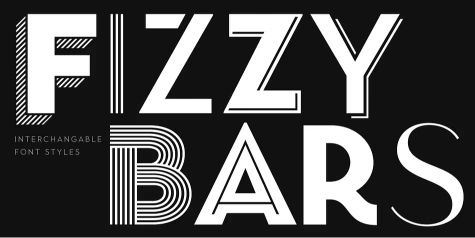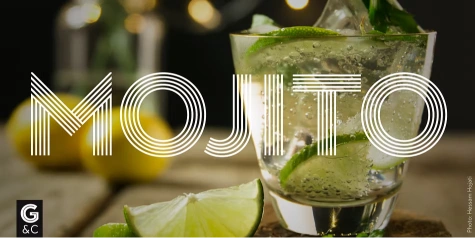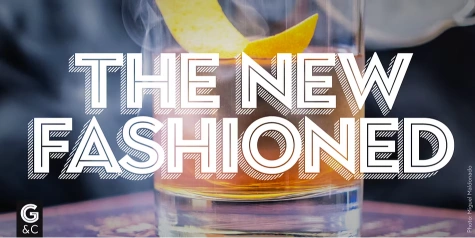
Town Font
About Town Font
I am a typographer and graphic designer who often searches for fonts that bring life to branding projects. Recently, I came across the Town Font, and it instantly caught my attention. Its art deco styling paired with modern detailing felt different from other typefaces I had been using.
I tested it in a restaurant branding project where both elegance and bold presence were needed. The results were stunning. Headlines stood out, and the styling made the layouts feel refined. Writing this review is my way of sharing why this font impressed me and why it might work for your projects too.
Town Font and Its Designer
The Town Font is a display font designed with inspiration from modern art deco and lettering traditions. It was created by Jason Vandenberg, a designer known for fonts that combine contemporary proportions with classic styling. His approach makes Town both decorative and practical, offering a typeface that adapts across brand identities and layouts.
Town comes as a collection rather than a single font. It includes eight base fonts that provide the essential weights for regular use. Alongside these, nine special decorative styles bring flair to headlines and projects that demand unique character. The inline versions, accent sets, and italics add more variation, giving designers multiple ways to experiment without leaving the collection.
The details within this typeface make it stand out. Each letter feels carefully constructed, balancing contemporary styling and subtle deco references. Unlike fonts that lean heavily on nostalgia, Town achieves a timeless appearance by blending the art deco foundation with clean, modern design rules. That balance is why it works so well for corporate branding, decorative labels, or even magazine layouts. Its appearance is elegant yet strong, offering both individuality and versatility in one package.
Features of Town Font
Town isn’t just a decorative font, it’s a full collection with enough range to cover multiple uses. The base fonts provide solid type weights suitable for regular text or headlines. Decorative sets introduce styles that create impact, such as inline variations for brighter titles or accent fonts for subtle shadows. These can be mixed and matched, blending together seamlessly for a unified appearance.
Inline fonts offer unique styling options. They can be combined with base fonts to create highlights, making headlines pop in a way that feels modern yet inspired by deco traditions. Italics and text weights round out the set, ensuring flexibility for different kinds of design.
Beyond technical details, Town inspires creativity. The collection feels like a toolkit, allowing designers to explore typography in fresh ways. Whether you need subtle styling and detail for magazine text or bold decorative accents for a headline, Town delivers options without forcing you into one look.
The Town Font Free Download is best suited for projects that require elegance with flexibility. Its display style makes it ideal for branding, where logos, corporate identity, and product labels demand a refined yet distinctive appearance.
In publishing, Town shines on magazine layouts. Its text weights and italics add balance, while decorative versions highlight section titles and pull quotes. Restaurant menus also benefit from its art deco inspiration, giving a stylish touch to headings while keeping text readable.
For web design, the webfont version works seamlessly. Headers, banners, and accent text take on a modern yet decorative feel that translates well to contemporary websites. Inline fonts and accent sets create bold headlines, while subtle styles bring depth to smaller details.
Print applications are equally strong. Labels, posters, and packaging benefit from the combination of modern proportions and decorative detailing. Designers working with brands that want a luxurious or contemporary identity will find Town especially fitting. Whether it’s a corporate project, a creative campaign, or a personal design, Town’s variety makes it a reliable option for many styles.